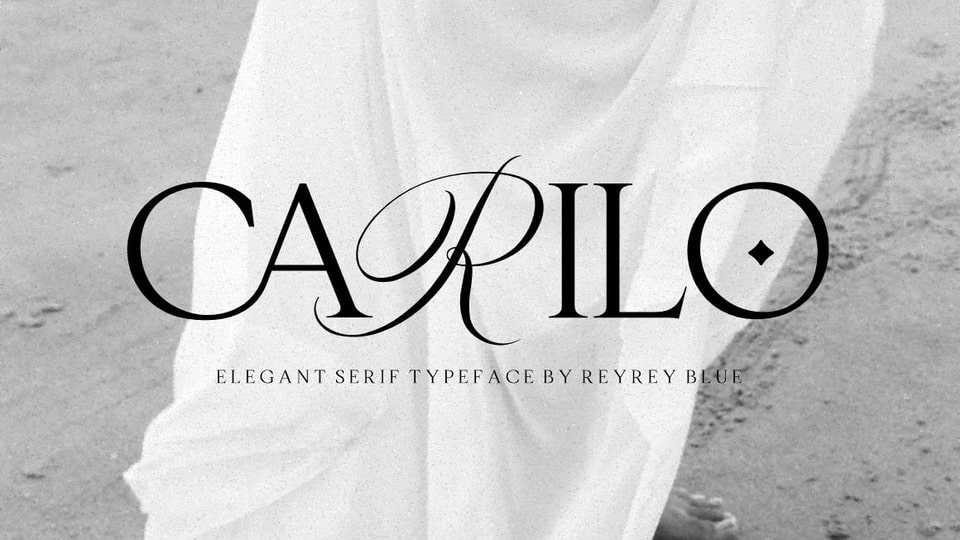
Carilo Font › Fontesk – Download Grátis
Download Carilo font, an elegant and luxurious serif font that combines classic calligraphy and serif letters. Carilo font is perfect for to create logos, branding, wedding invitations and more.
Designer: Reyrey Blue